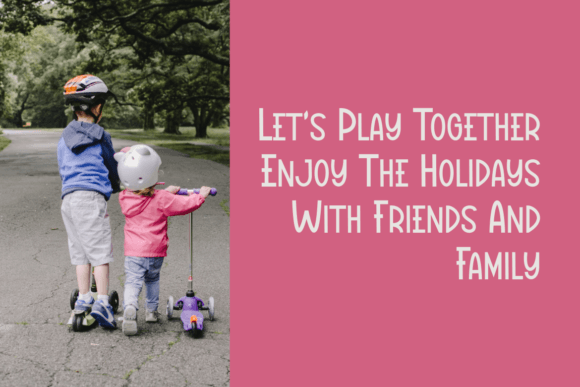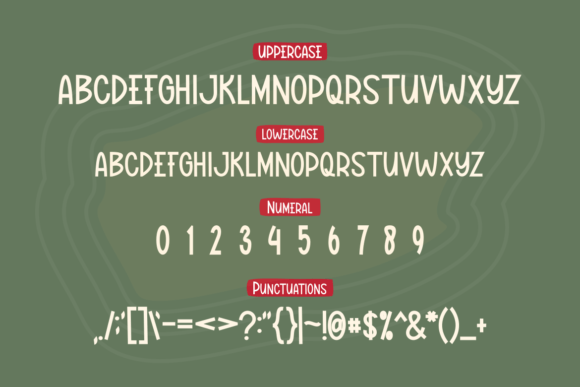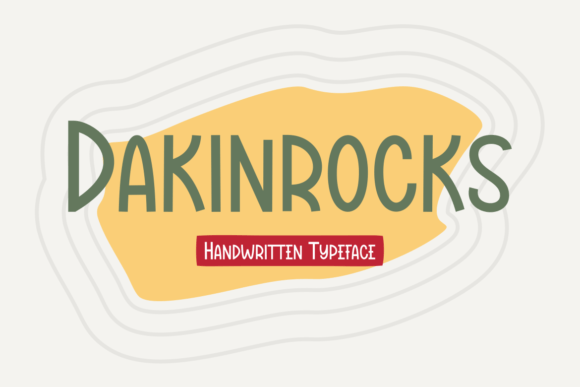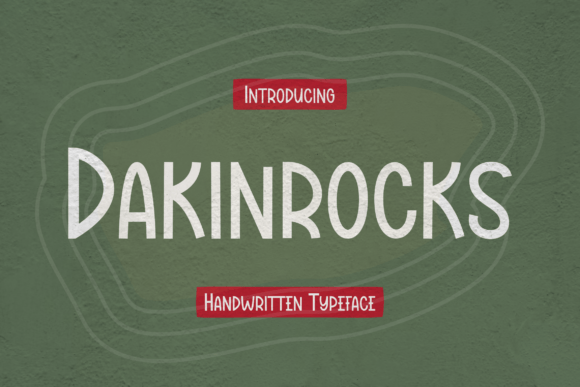
Introduction to Dakinrocks Font
Dakinrocks is a stylish sans-serif font that combines a casual and thin-lettered design.
Its sleek and minimalistic appearance adds a touch of sophistication to any project The clean lines and delicate proportions make Dakinrocks versatile and perfect for various applications, from branding and advertising to digital designs.
Key Features of Dakinrocks Font
Why Choose Dakinrocks Font?
Dakinrocks Font offers exceptional quality and versatility, making it a valuable addition to your design toolkit. Whether you’re creating for personal projects or commercial use, Dakinrocks Font delivers professional results.